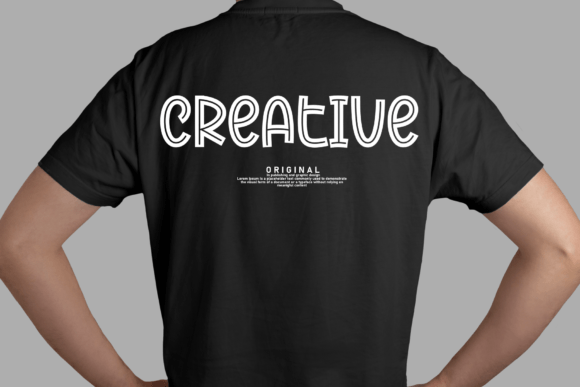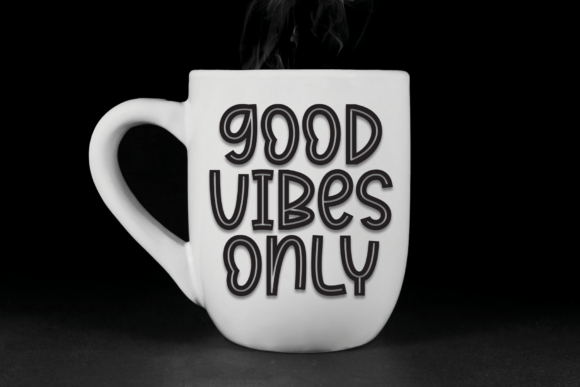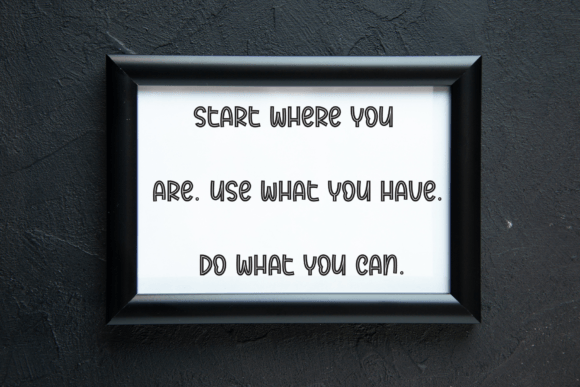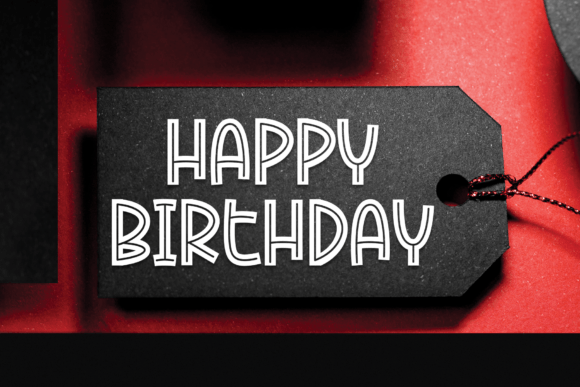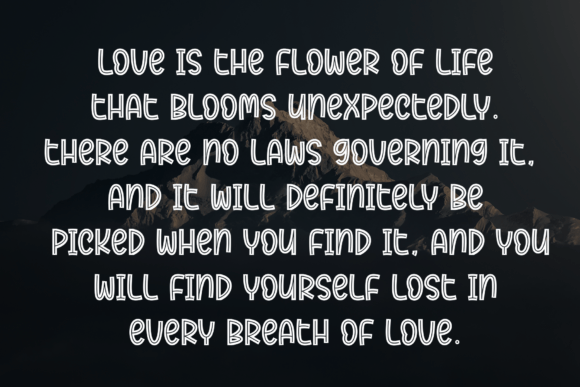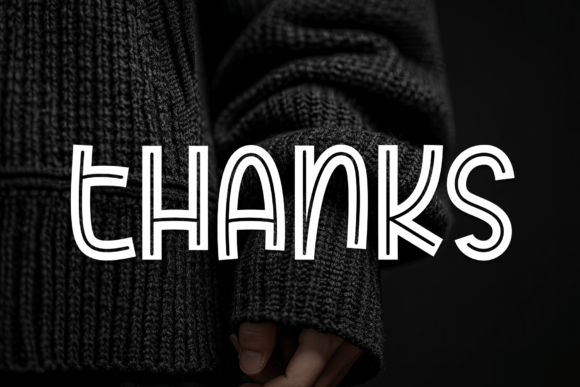
Introducing Dark Sweater Font: The Ultimate Handwritten Font for Creative Designs
Are you a designer or crafter looking for a font that can add a touch of warmth and personality to your projects? Look no further than Dark Sweater Font, a sweet and friendly handwritten font that’s perfect for a wide range of designs. With its natural and unique style, Dark Sweater Font is incredibly versatile and can be used in various creative projects, from branding and packaging to invitations and crafts.
The Characteristics of Dark Sweater Font
Dark Sweater Font is a handwritten font that exudes a sense of warmth and friendliness. Its natural and unique style makes it stand out from other fonts, and its sweet and approachable tone makes it perfect for designs that require a personal touch. The font’s characteristics include:
- Handwritten style: Dark Sweater Font is a handwritten font that mimics the natural flow of handwriting, making it perfect for designs that require a personal touch.
- Unique and distinctive: The font’s unique style sets it apart from other fonts, making it perfect for designers who want to create distinctive and memorable designs.
- Natural and organic: Dark Sweater Font has a natural and organic feel that makes it perfect for designs that require a earthy or vintage touch.
The Benefits of Using Dark Sweater Font
Dark Sweater Font offers a range of benefits for designers and crafters, including:
- Versatility: The font’s unique style makes it incredibly versatile and suitable for a wide range of designs, from formal to informal projects.
Design Ideas Using Dark Sweater Font
Dark Sweater Font is perfect for a wide range of design projects, including:
- Branding and packaging: Use Dark Sweater Font to create custom branding and packaging designs that stand out from the crowd.
- Invitations and stationery: Add a personal touch to your invitations and stationery with Dark Sweater Font’s sweet and friendly style.
- Crafts and DIY projects: Dark Sweater Font is perfect for crafters and DIY enthusiasts who want to add a personal touch to their projects, such as handmade cards and gift tags.
Tips for Using Dark Sweater Font
Here are some tips for using Dark Sweater Font effectively in your designs:
- Experiment with different colors: Dark Sweater Font looks great in a range of colors, so don’t be afraid to experiment and find the perfect color scheme for your design.
- Pair with other fonts: Dark Sweater Font pairs well with other fonts, so try combining it with other fonts to create a unique and interesting design.
- Use it sparingly: While Dark Sweater Font is a beautiful font, it can be overwhelming if used too much. Use it sparingly to add a touch of personality to your design.